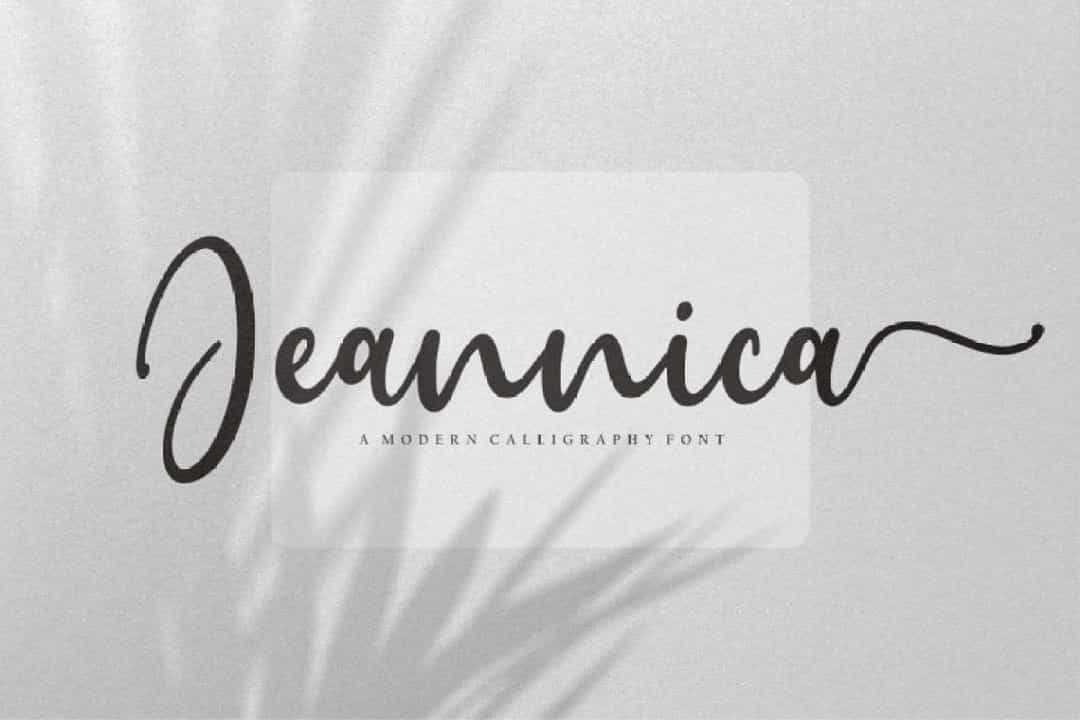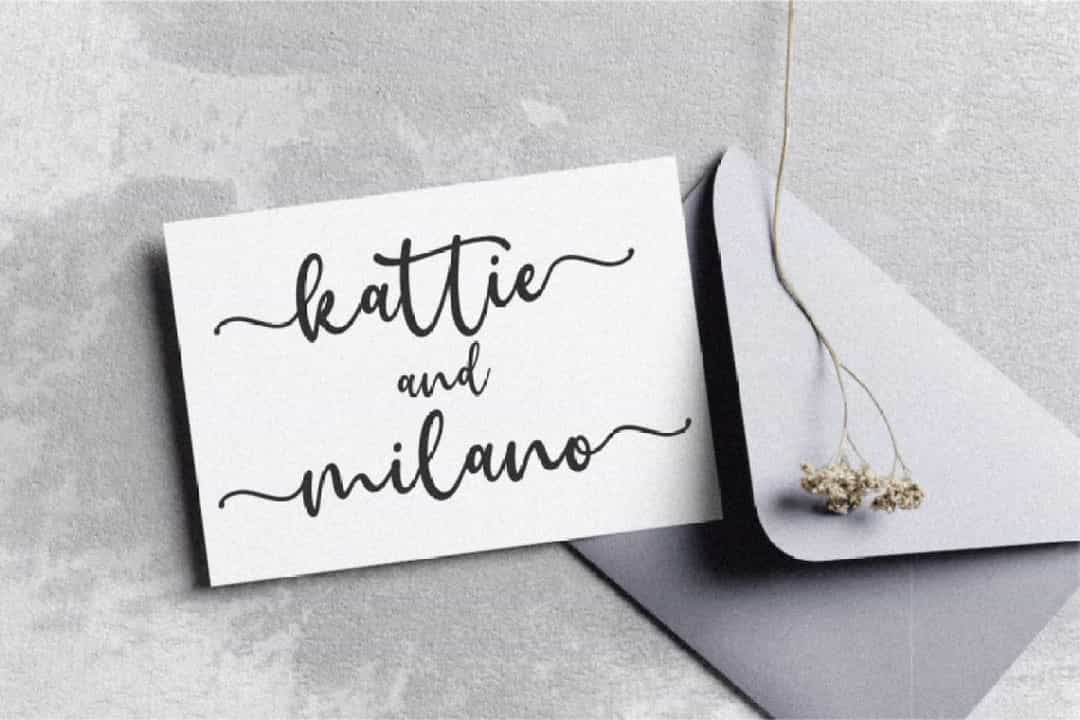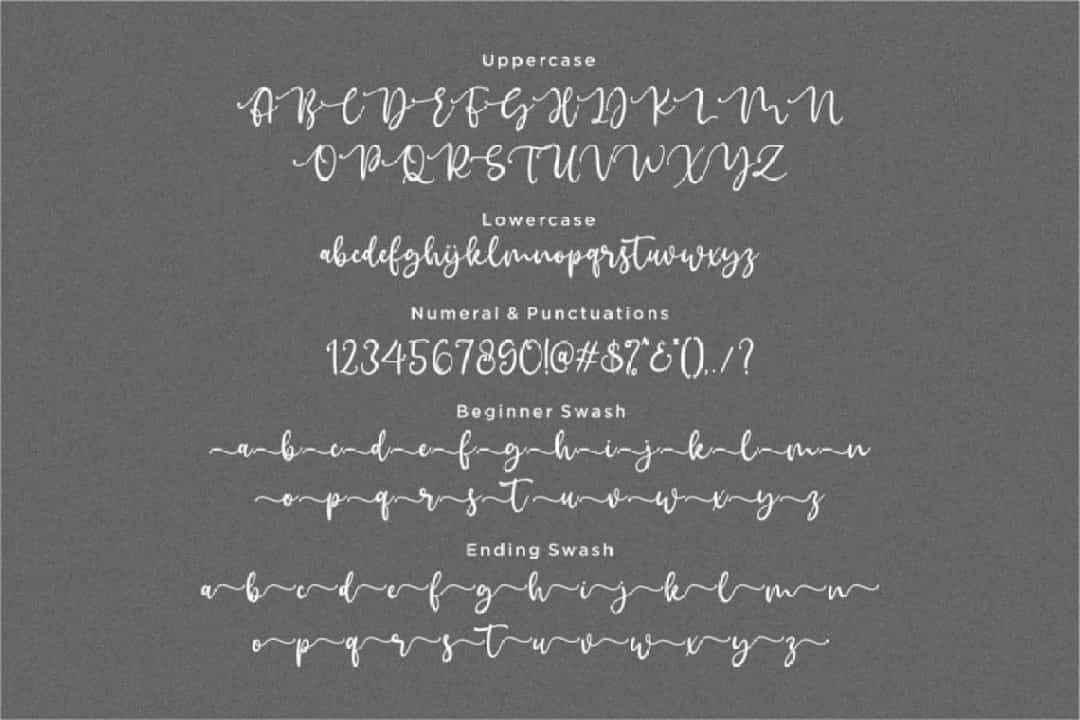
Jeannica can be described as an innovative and modern Calligraphy script font with its own distinctive style and elegance, suitable for branding, logo design covers, posters and more. PUA encoded, it allows access to its amazing symbols and ligatures instantly!